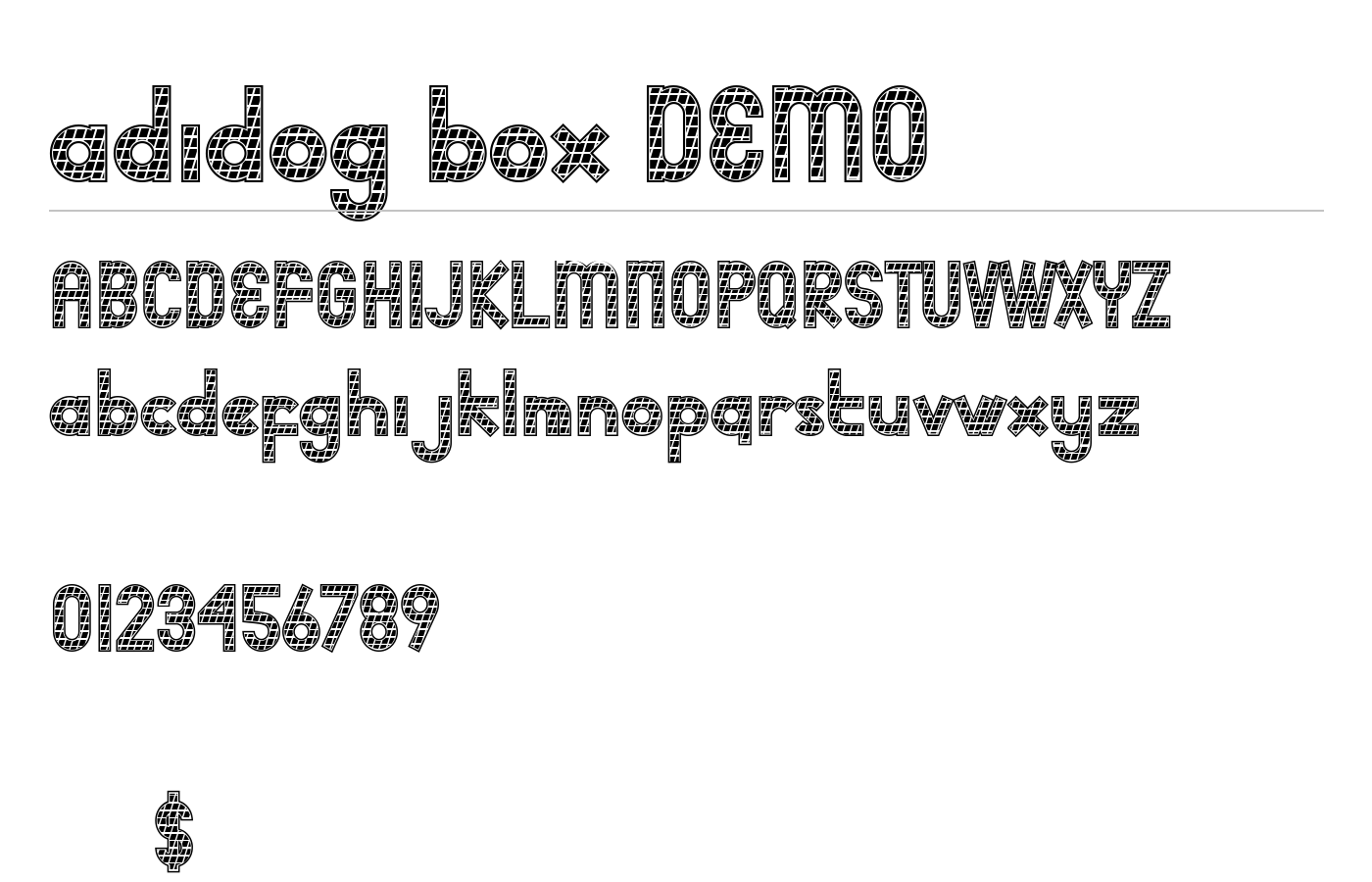
Adidog Box DEMO is a playful and modern sans serif font with a distinctive grid pattern inside each character, giving it a bold, textured look. Its condensed letterforms and uniform stroke weight create a clean yet eye-catching style, perfect for creative headlines, logos, or branding that wants to stand out with a unique, geometric flair. This font works well in designs that aim for a fun, energetic vibe while maintaining clear readability.
adidog box DEMO Font
About adidog box DEMO Font